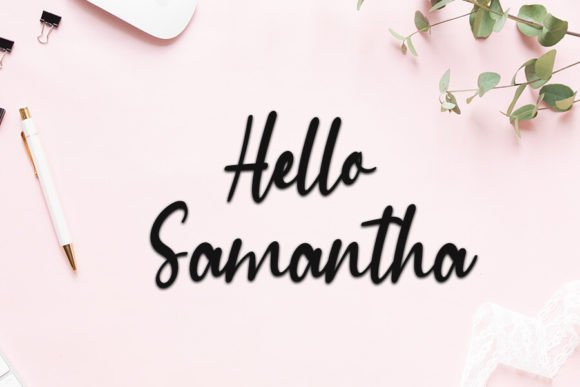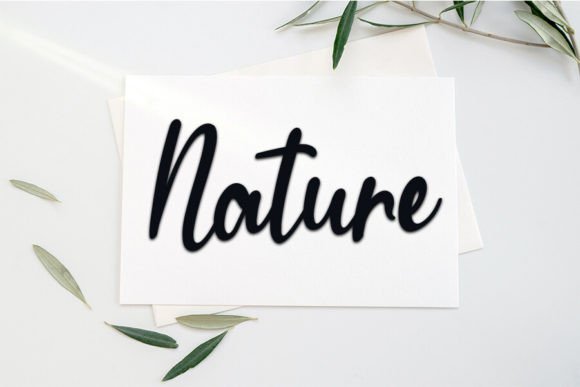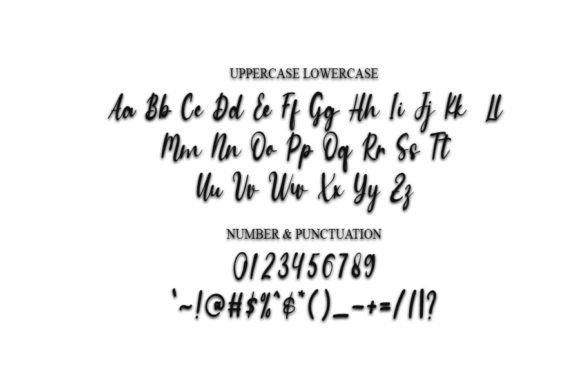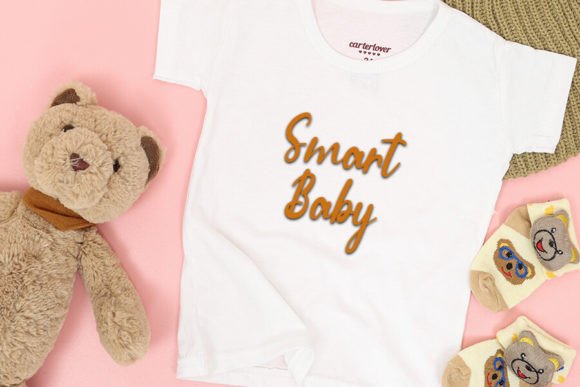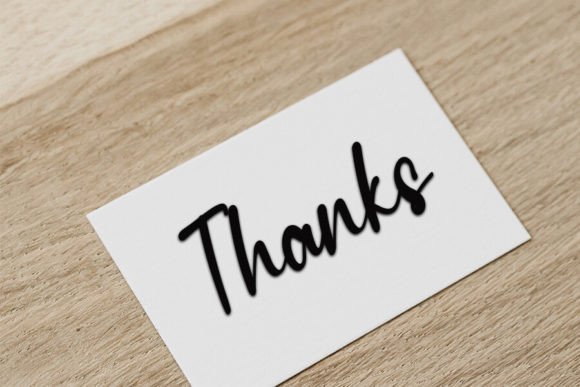
The Magic of the Holiday Season: Introducing Baby Sweety Font
As the snowflakes start to fall and the twinkling lights illuminate the streets, many of us are filled with a sense of nostalgia and joy. We spend hours crafting the perfect holiday cards, gift tags, and decorations to spread cheer to our loved ones. For designers, this is the perfect time to get creative and infuse their projects with a touch of festive magic.
That’s where Baby Sweety Font comes in – a delightful, festive typeface that embodies the spirit of the holiday season. With its charming decorations and unique flair, this font adds a dash of whimsy to any design. Whether you’re working on a greeting card, gift label, or holiday-themed project, Baby Sweety Font is the perfect companion to bring a cheerful and nostalgic atmosphere to your words.
Baby Sweety Font Key Features
- Unique Characteristic: This font features a playful, handwritten style with a mix of bold and cursive elements, making it perfect for creating eye-catching and whimsical designs.
Baby Sweety Font Review
Overall, I’d say the Baby Sweety Font is a sweet addition to any design project. ✨ It’s perfect for creating a playful and whimsical atmosphere, especially when it comes to projects related to babies or kids. The font is designed with rounded shapes and soft edges, making it feel approachable and gentle.
- Its versatility – Baby Sweety Font can be used for a wide range of projects, from business cards to advertisements.
- Its legibility – The font is easy to read, even at smaller sizes.
- Its customization options – It comes with a variety of styles and weights, allowing designers to experiment with different looks.
- ⚠️ It may not be suitable for more formal or professional projects, as it can come across as too playful.
- ⚠️ Some letters may be difficult to distinguish from one another, especially at smaller sizes.
Overall, I’d give the Baby Sweety Font 4 out of 5 stars. It’s a great addition to any designer’s toolkit, but it’s essential to use it thoughtfully and consider the project’s tone and audience.
Getting the Most Out of Baby Sweety Font
For best results, use the Baby Sweety font for designs that require a playful, cursive feel.
Use it for titles, headings, and other text elements that need to stand out.
Experiment with different font sizes and colors to create a unique look.
The Baby Sweety font is ideal for:
Children’s party invitations and decorations
Product labels and packaging
Any design project that requires a
Alternatives to Baby Sweety Font
Cutey Font
Cutey Font is a playful, cursive font suitable for children’s products, nursery decorations, and gift wrap designs. It is more modern and trendy compared to Baby Sweety Font, which makes it ideal for contemporary designs.
Comparison: Cutey Font has a more dynamic feel and is better suited for digital designs, while Baby Sweety Font is more traditional and suitable for printed materials.
Great Vibes Font is a beautiful, handwritten font perfect for quotes, invitations, and other creative projects. It has a more elegant feel compared to Baby Sweety Font, which makes it ideal for upscale designs.
Comparison: Great Vibes Font is more versatile and can be used in a variety of designs, while Baby Sweety Font is more limited in its application.
Algerian Font
Algerian Font is a classic, elegant font suitable for wedding invitations, luxury brands, and high-end designs. It has a more sophisticated feel compared to Baby Sweety Font, which makes it ideal for formal designs.
Comparison: Algerian Font is more formal and traditional, while Baby Sweety Font is more playful and casual.